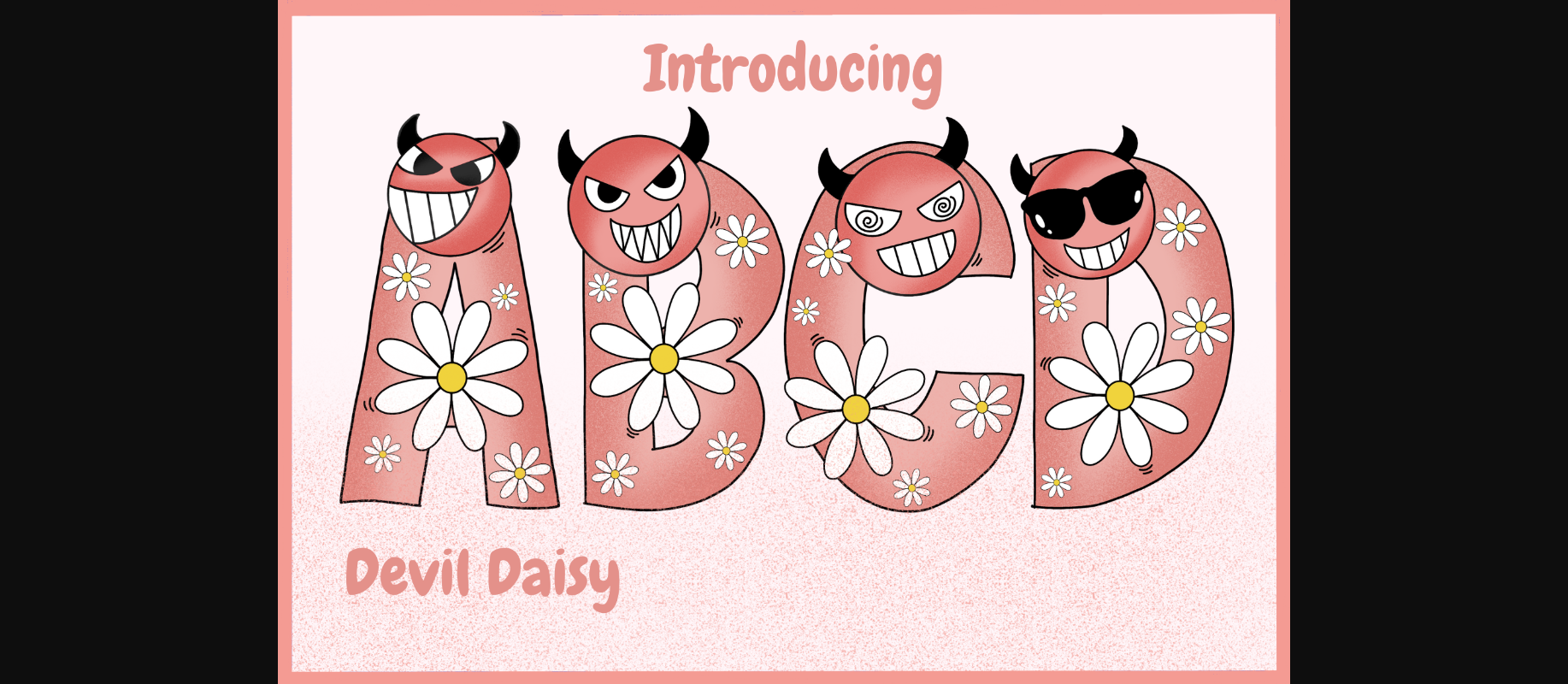
About Devil Daisy Font
Devil Daisy font is a delightful all-caps typeface that combines mischievous devil faces with whimsical flowers, creating a one-of-a-kind decorative charm. With its quirky design, this font adds a playful and light-hearted touch to any creative project. Whether you’re crafting greeting cards, party banners, or quirky posters, Devil Daisy font is the perfect choice for infusing your text with a blend of humor and floral flair.